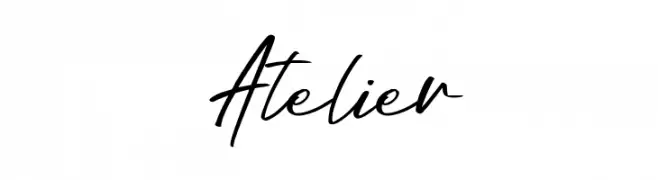
A futuristic, 3D, italic font with a bold, geometric design.
A futuristic, bold font with geometric, blocky characters and a strong, digital aesthetic.
Futuristic, bold, italicized font with a dynamic, three-dimensional style.
A bold, futuristic italic font with angular, geometric letterforms.
A bold, futuristic font with angular, geometric shapes.
A bold, geometric font with a rough, textured finish and sharp, angular characters.
Decorative symbol font with zodiac and astrology-themed icons.
Bold, geometric font with thick strokes and tight spacing for a strong, modern look.
A bold, geometric font with a modern, futuristic style.
A bold, geometric font with a retro-modern style, ideal for impactful headlines.
A bold, geometric font with a futuristic and strong aesthetic.
A bold, geometric font with tall, narrow characters and a modern aesthetic.
An elegant and flowing script font with graceful curves and connected strokes.
A dynamic, handwritten font with fluid, cursive letterforms.
A modern serif font with balanced proportions and versatile applications.
A bold serif font with strong, elegant characters ideal for headlines.
A modern serif font with sharp edges and balanced proportions.
A whimsical, decorative font with arrow-like serifs and playful character design.
A bold, playful font with a hand-drawn, whimsical style.
A graceful and ornate script font with intricate loops and flourishes.
A modern, cursive script font with elegant loops and swashes.
A bold, expressive brush-style font with dynamic strokes and artistic flair.
A modern, geometric font with clean lines and uniform structure.
A hand-drawn, brush-style font with asymmetrical and dynamic characters.
A playful, hand-drawn font with a whimsical and casual style.
A modern, sleek font with tall, narrow characters and minimal contrast.